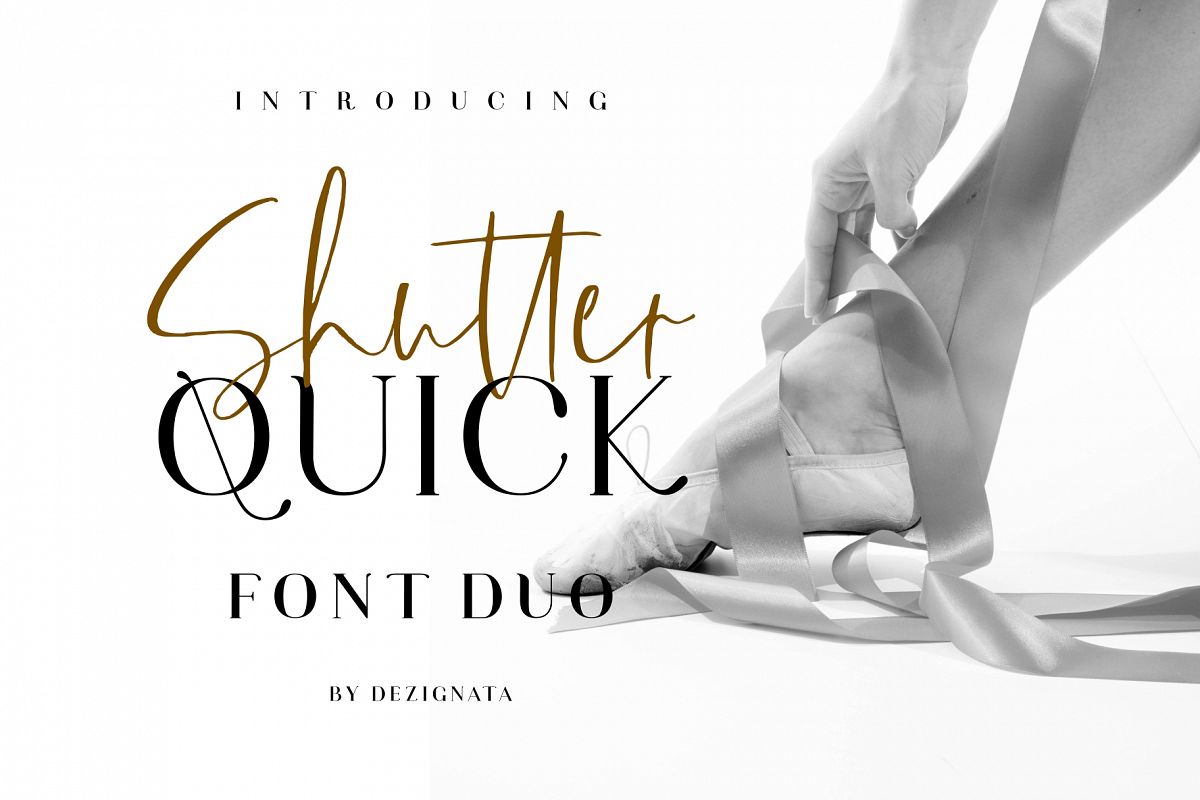
Shutter Quick Font Duo
Introducing our first font duo Shutter Quick , a classy, contemporary and very fashionable serif font family with 2 script fonts included. This double font will help your design be more modern and beautiful. **Shutter Quick** will suit perfectly on fashion design or brand. It also will make your magazine cover be more attractive.
Shutter Quick includes 5 fonts
- Shutter Quick Serif Regular
- Shutter Quick Serif Bold
- Shutter Quick Serif Italic
- Shutter Quick Script
- Shutter Quick Script Alt